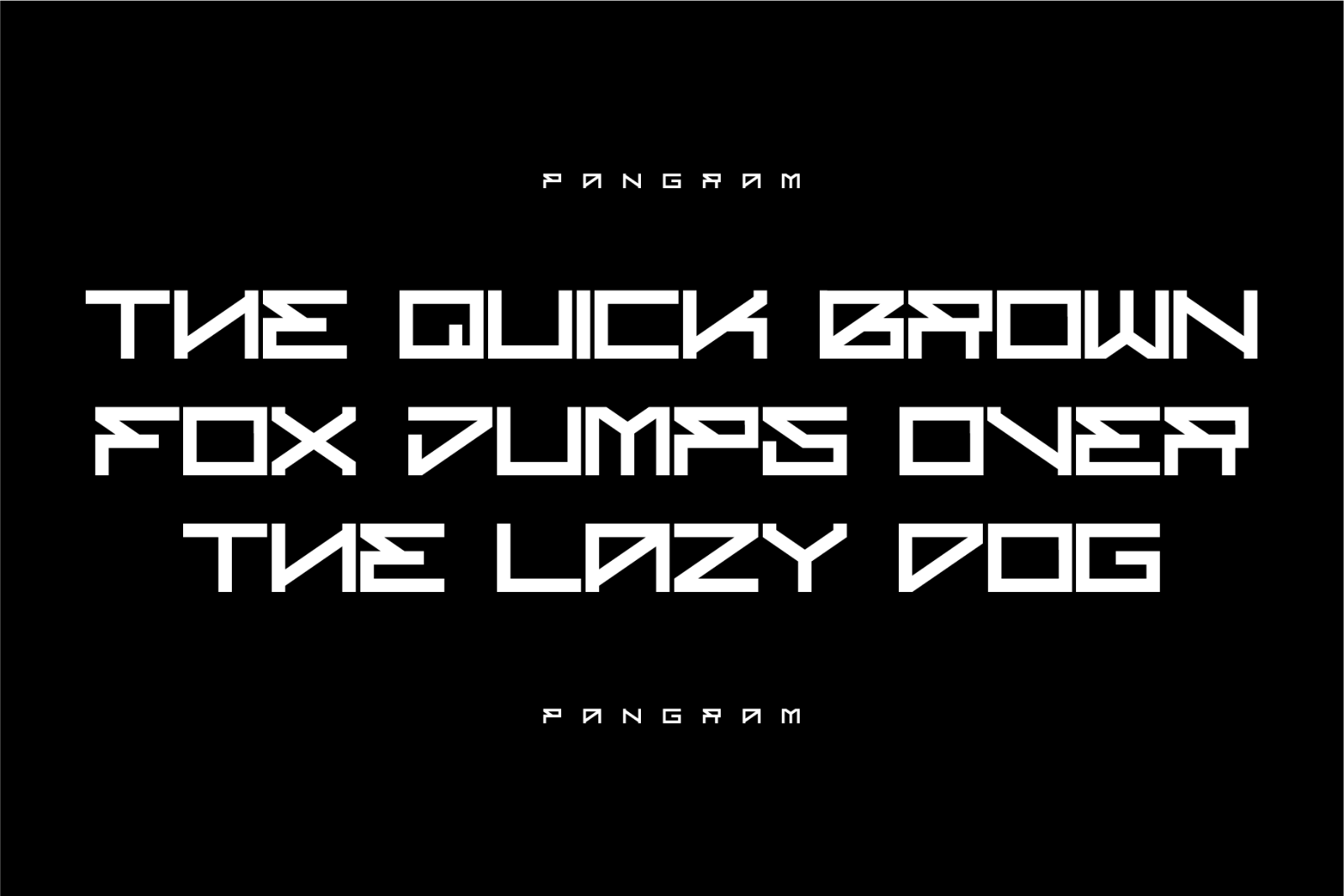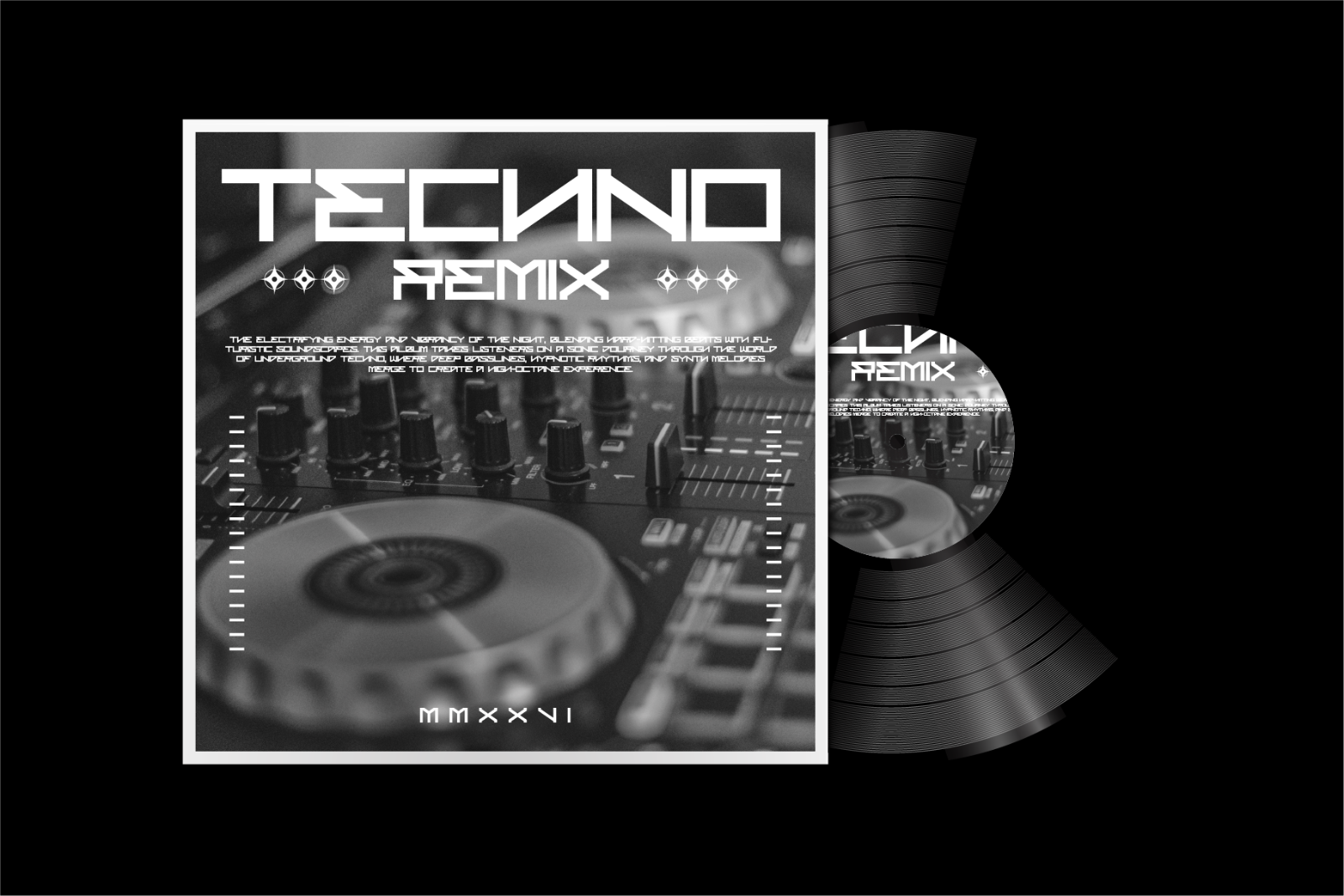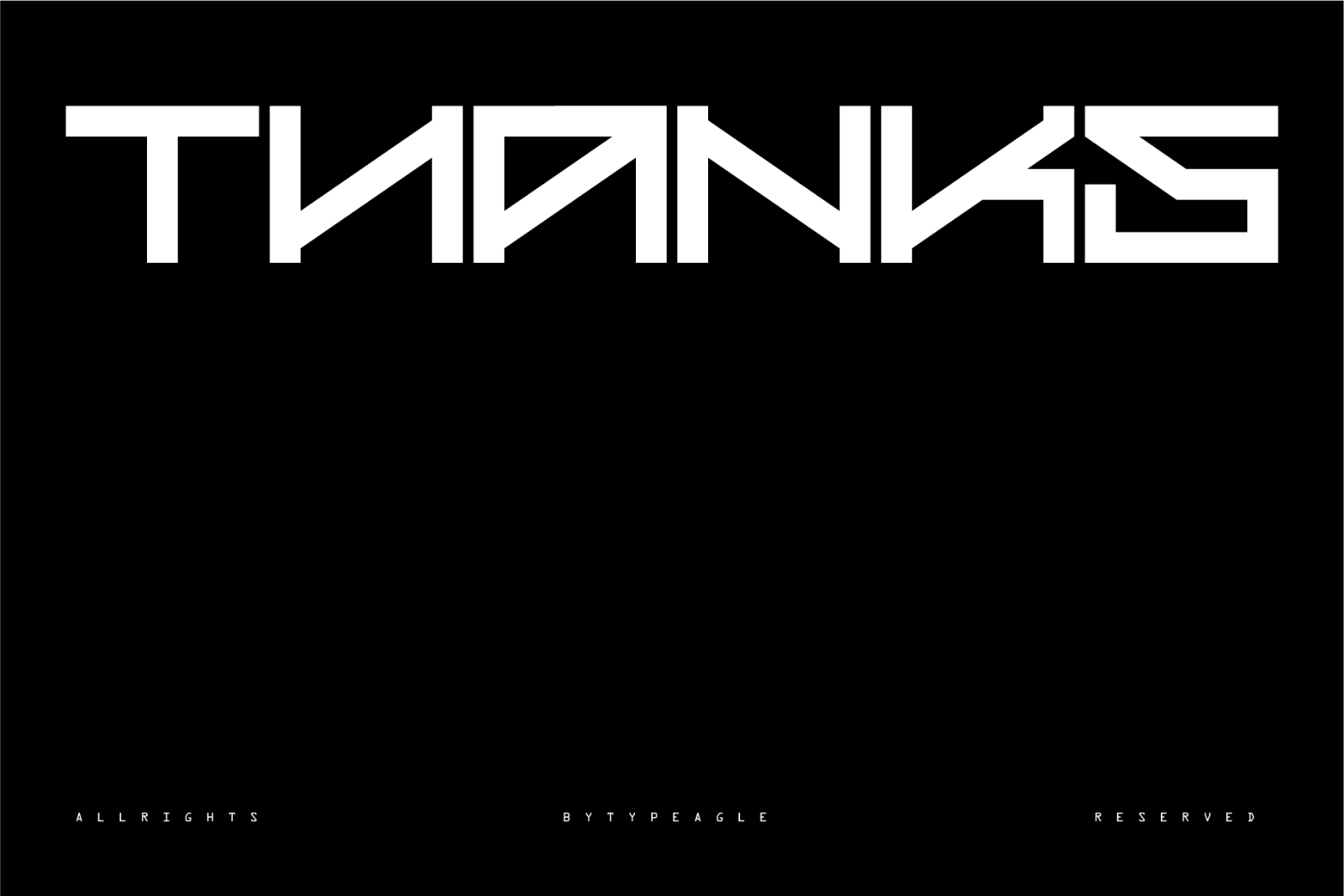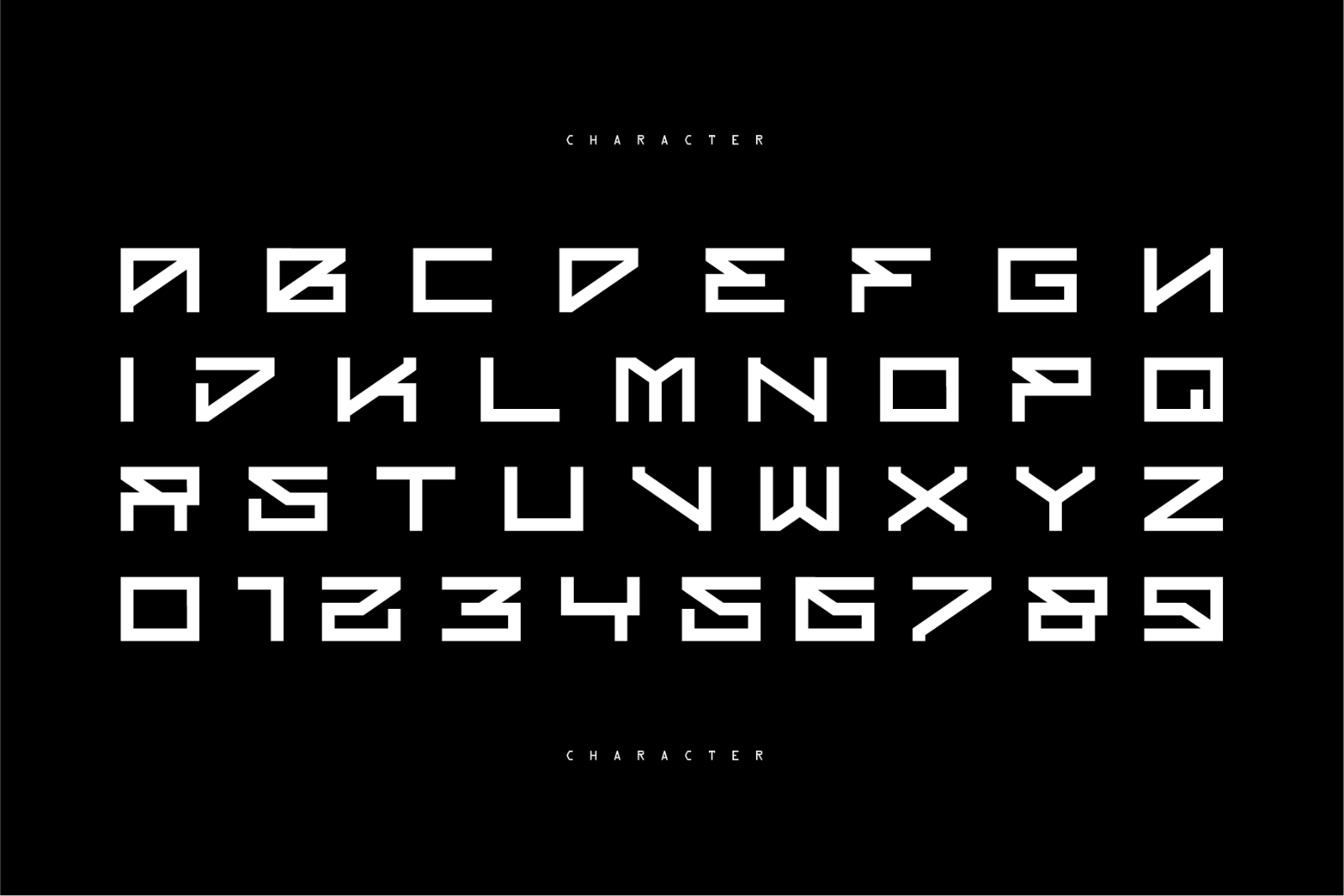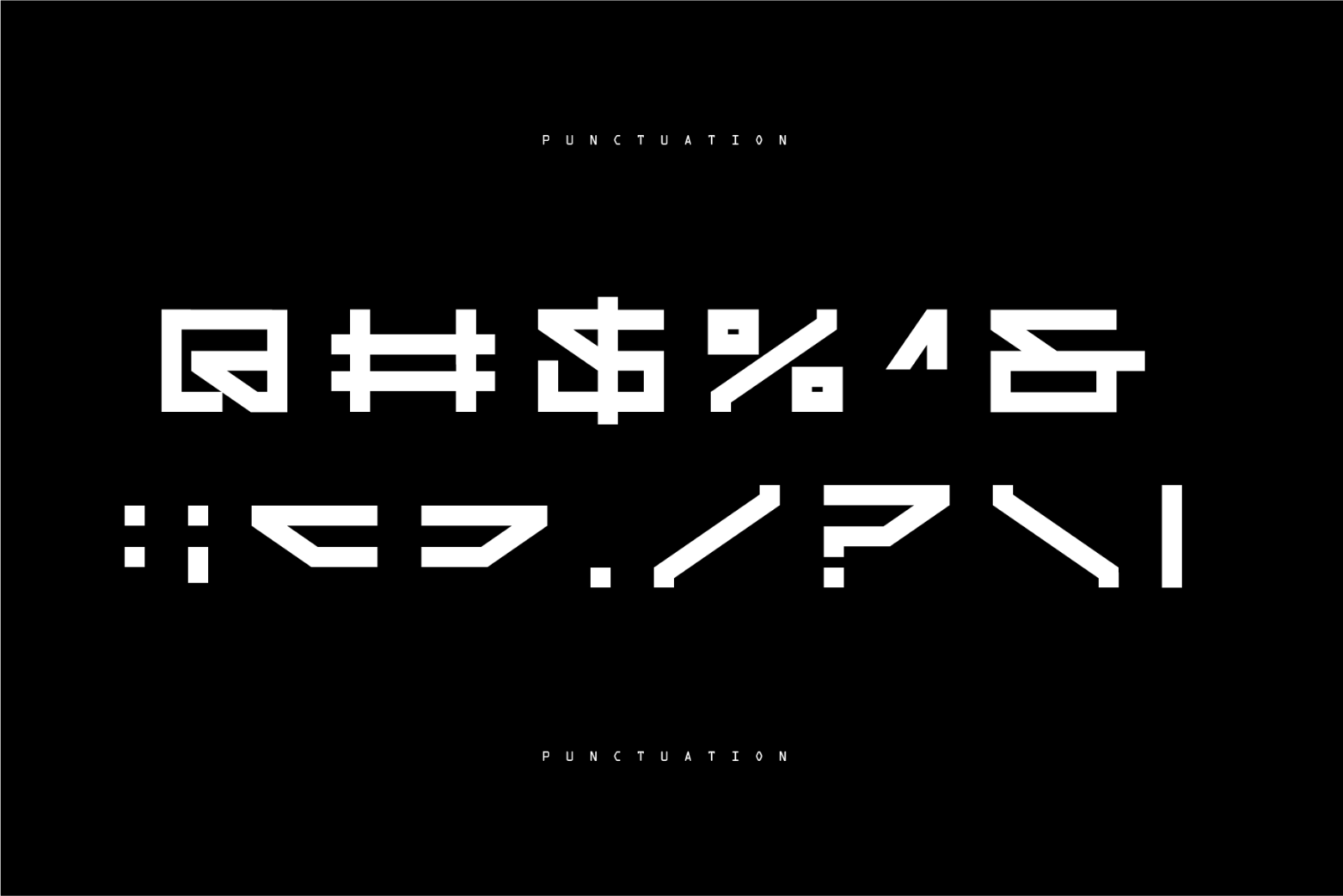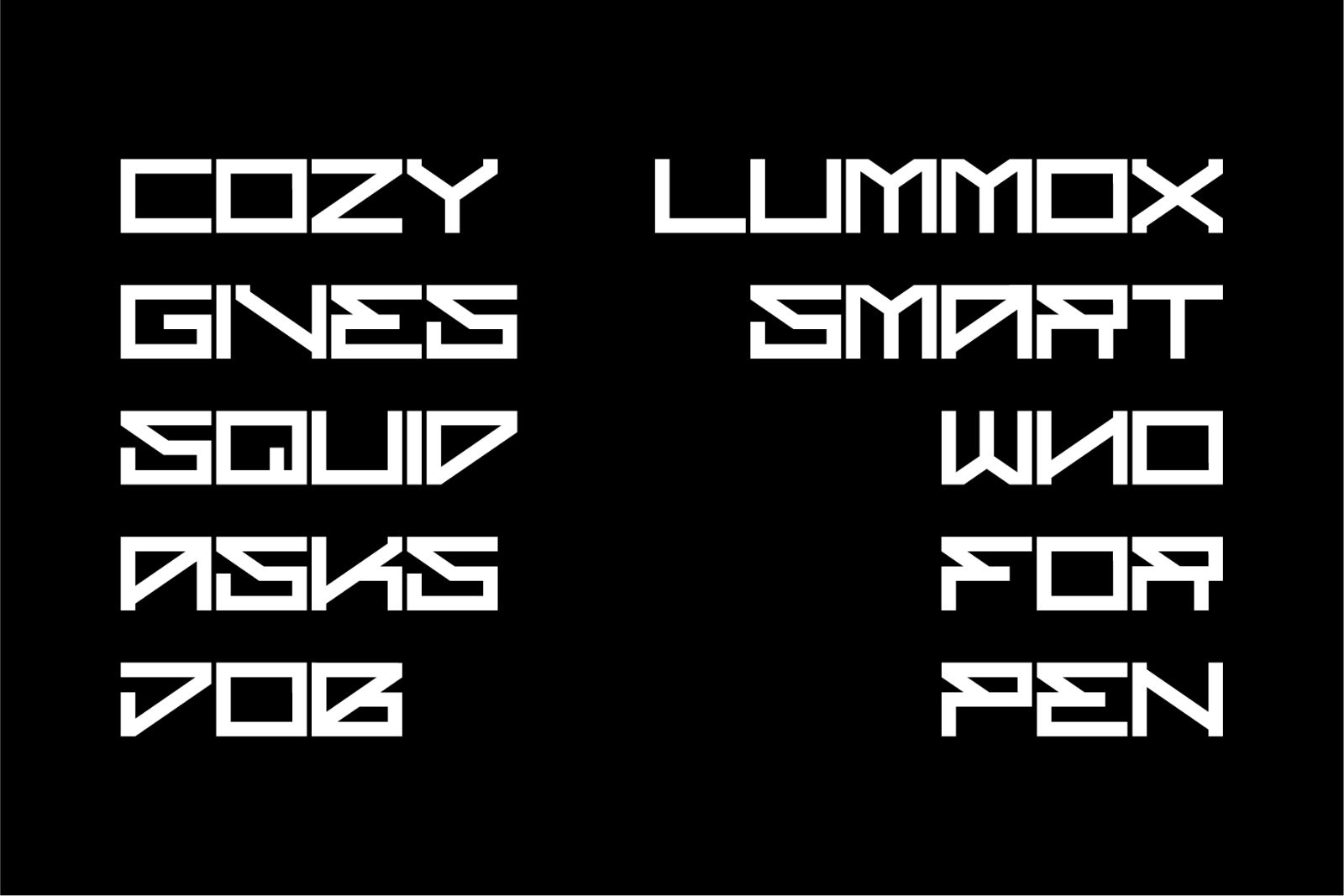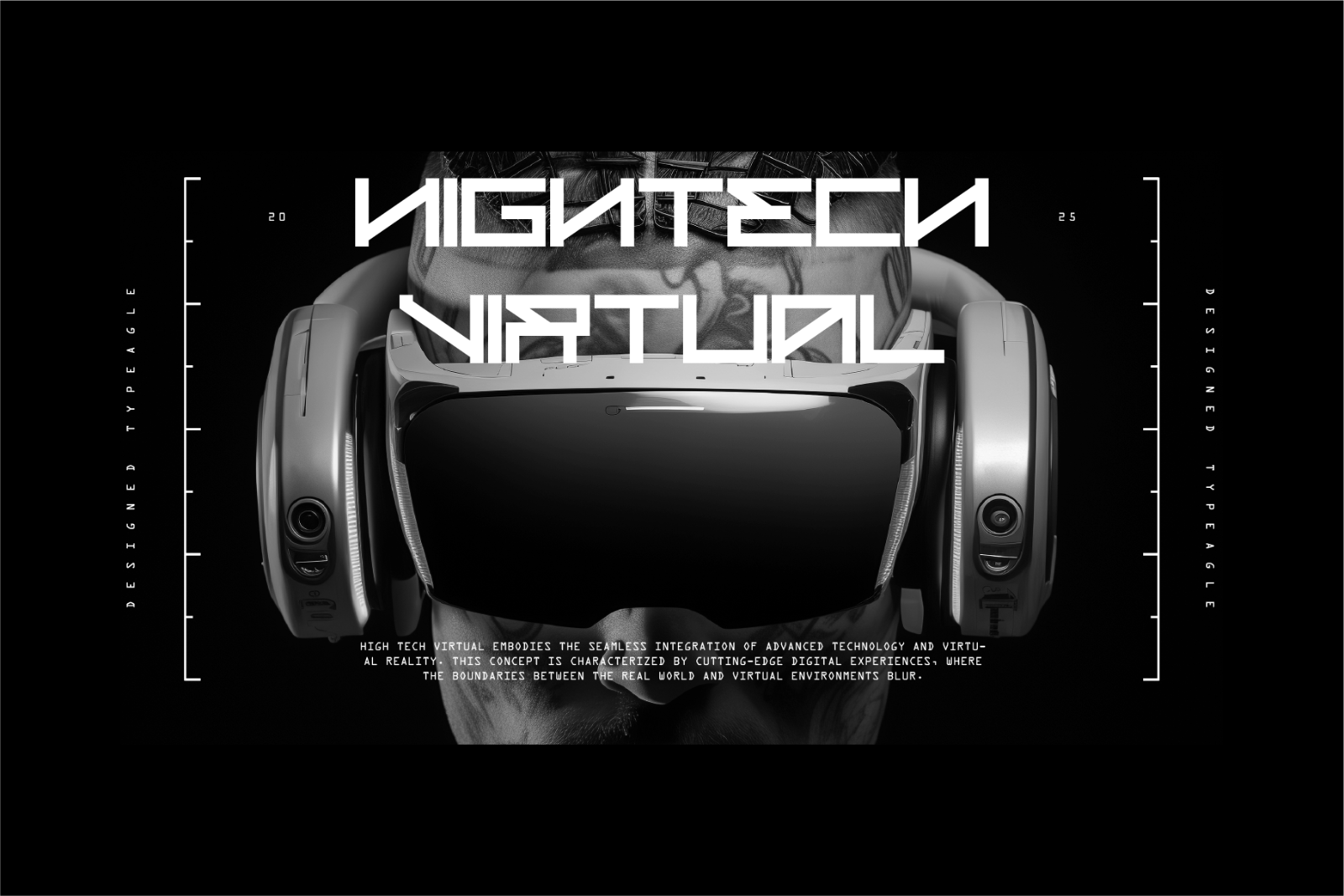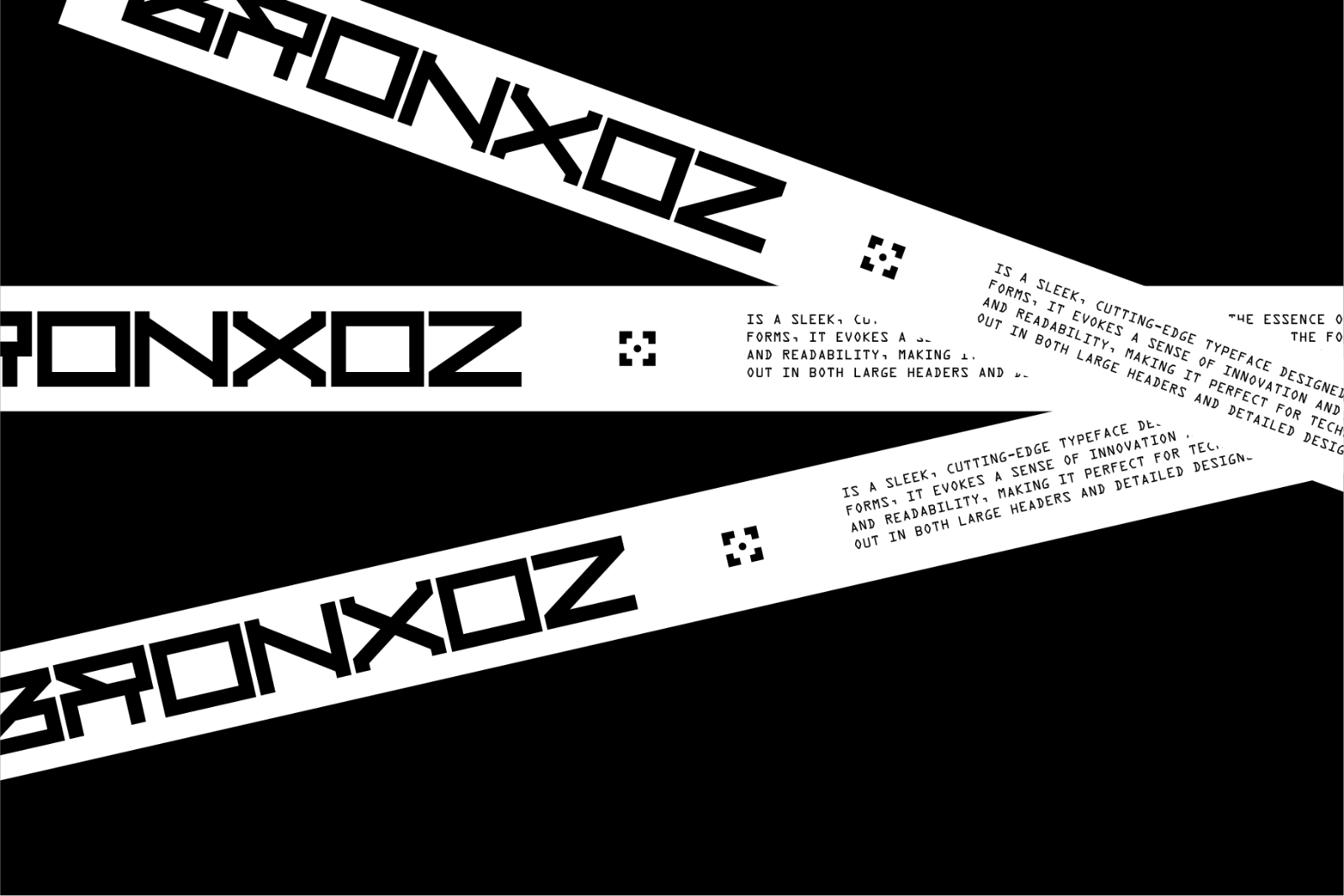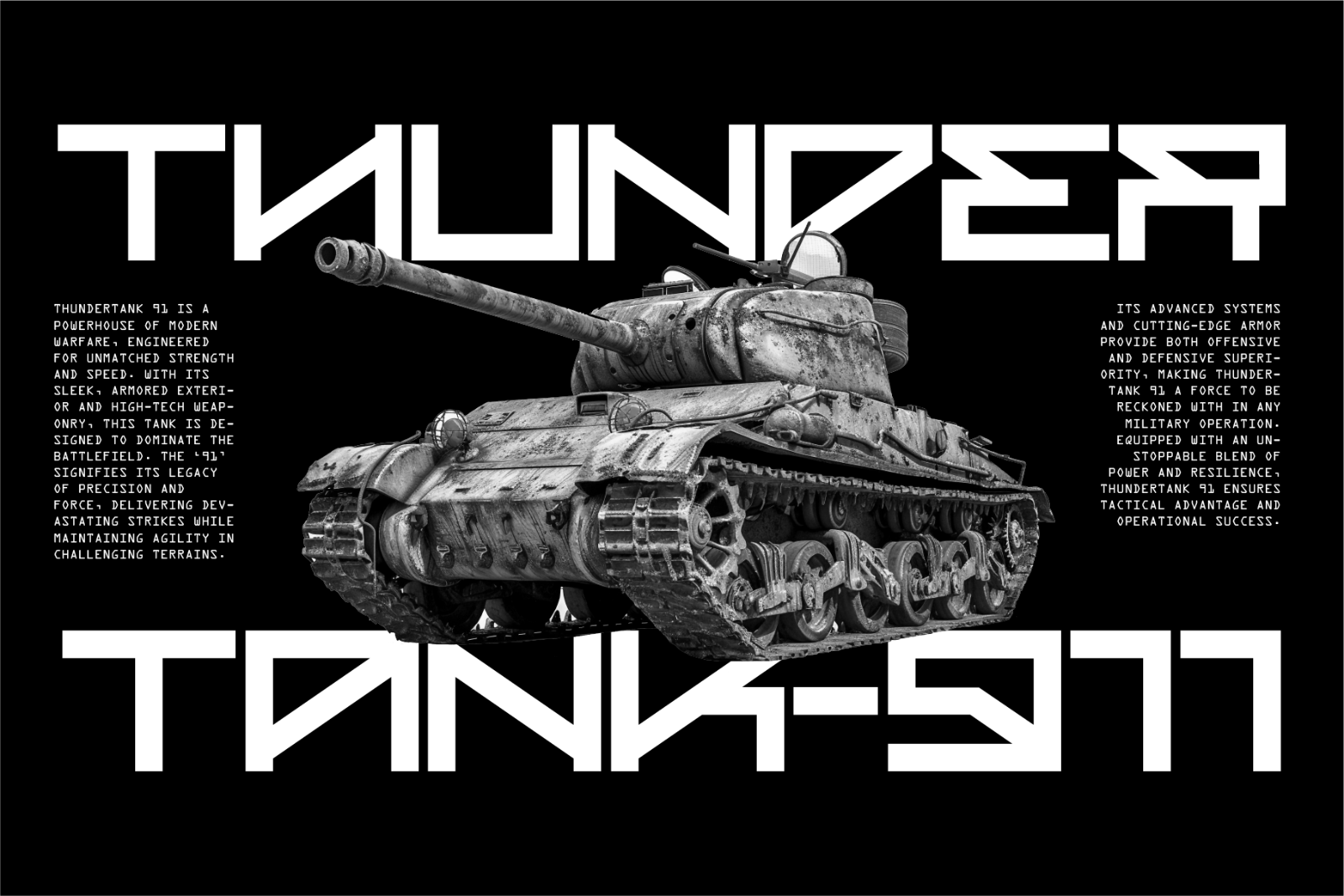
Bronxoz Is a sleek, cutting-edge typeface designed to capture the essence of the future. With sharp lines and angular forms, it evokes a sense of innovation and forward-thinking. The font’s geometric structure balances modernity and readability, making it perfect for technology, sci-fi, and digital-themed projects. Its bold presence stands out in both large headers and detailed designs, making it versatile for any contemporary design project.